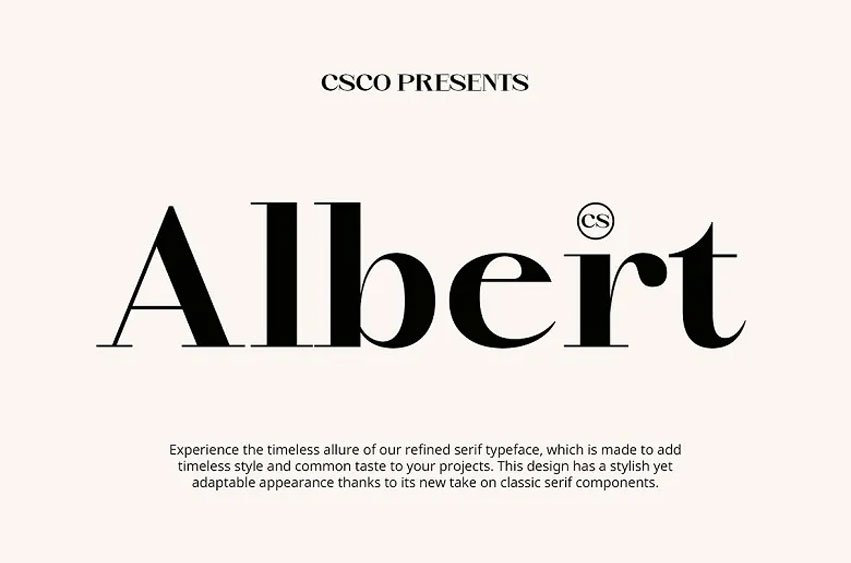
CS Albert Font
CS Albert Font is an elegant serif font that represents the Didone style, which is distinguished by a pronounced differentiation of mass and width. This design decision gives a very rich and refined look and feel that makes this control ideal for use in high-end and formal systems.
The differentiation of the thickness of CS Albert’s lines adds to its modern look. This feature gives a good visual contrast that enhances the font’s classy and sophisticated look, ideal for use in classy products.